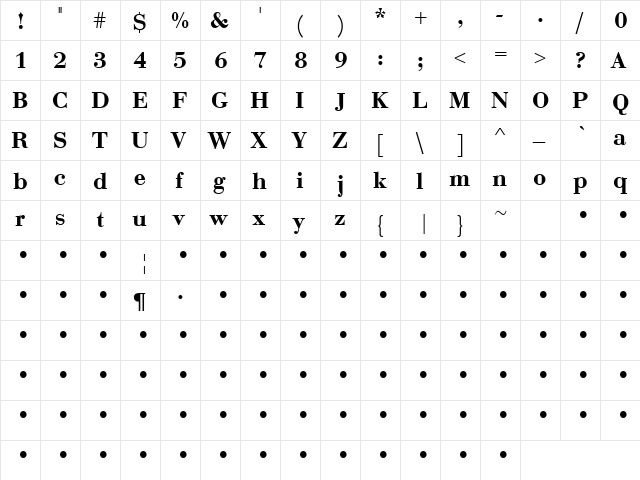
QTBodini Bold
Design Context for QTBodini Typeface
QTBodini is a composed and adaptable typeface that performs quietly and consistently across a wide range of design contexts. Its bold stroke weight gives it real presence on the page.
Pro Tip: Pair QTBodini with a font of contrasting weight or personality to build a more expressive typographic hierarchy.